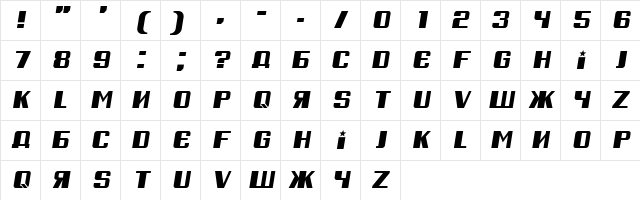
Complete Russian Spring Italic glyph index. Displaying only characters natively supported by Russian Spring Italic font.
Russian Spring is a composed and adaptable typeface that performs quietly and consistently across a wide range of design contexts. The slanted form adds forward momentum and visual energy.